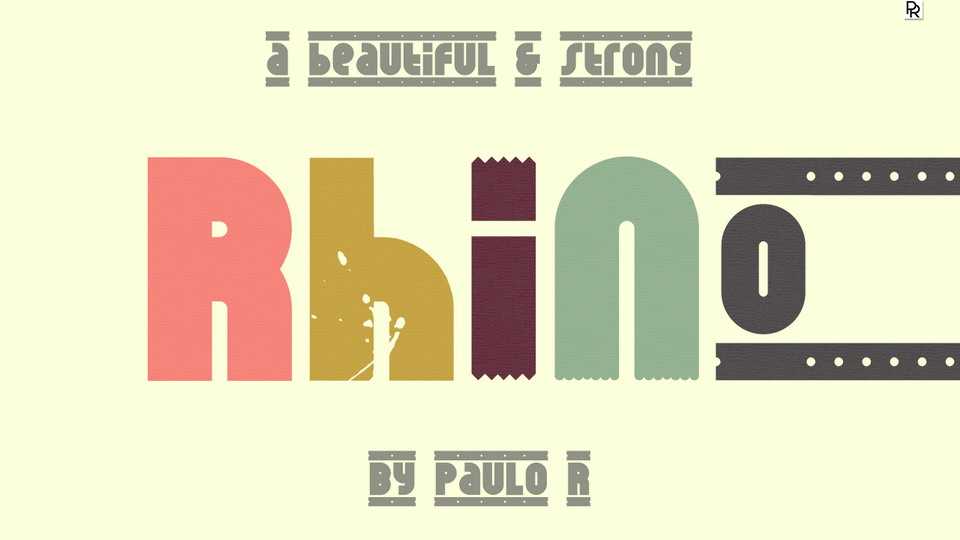
Download Rhino typeface, a beautiful and strong display font family in 5 styles with retro look. Rhino is great for logos and labels, headlines, posters, vintage designs and more.
Designer: Skomii Paulo